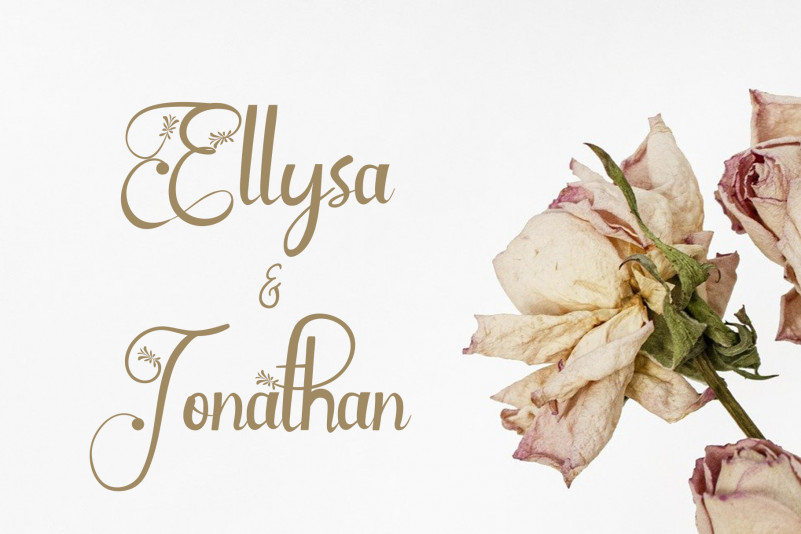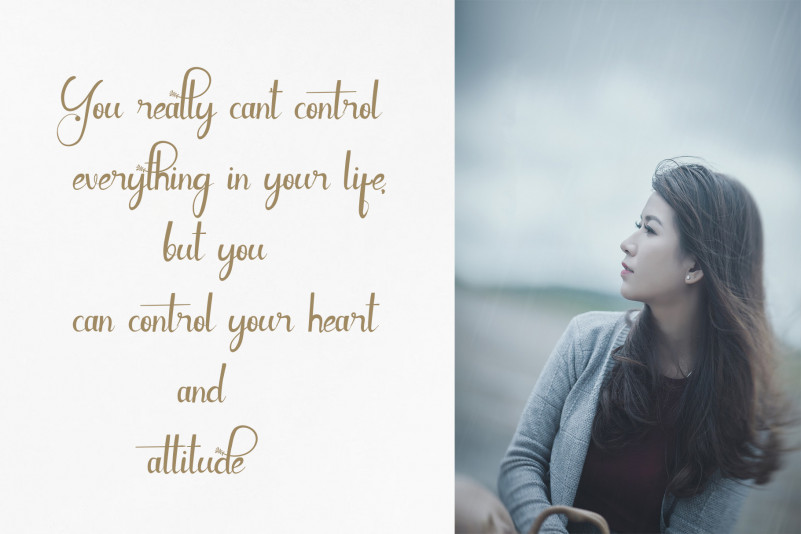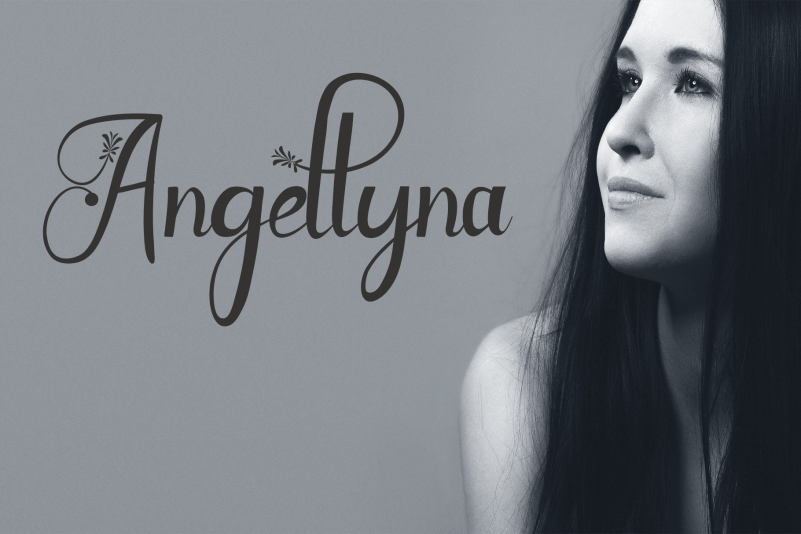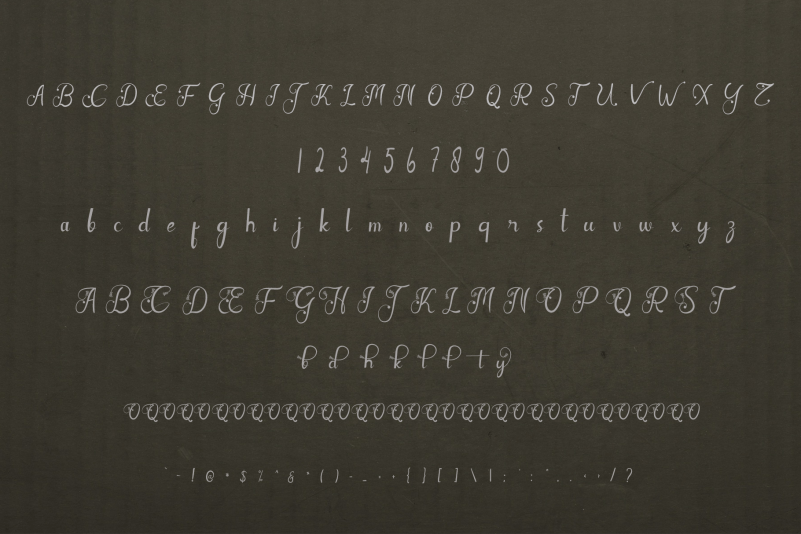
Handbeauty Font
Handbeauty Calligraphy Font
This is a stylish and delicate script font. It has a clean, thin and smooth vibe and it will be a hit for any design that you want to add it to. Fall in love with its incredibly versatile style and use it to create spectacular designs!